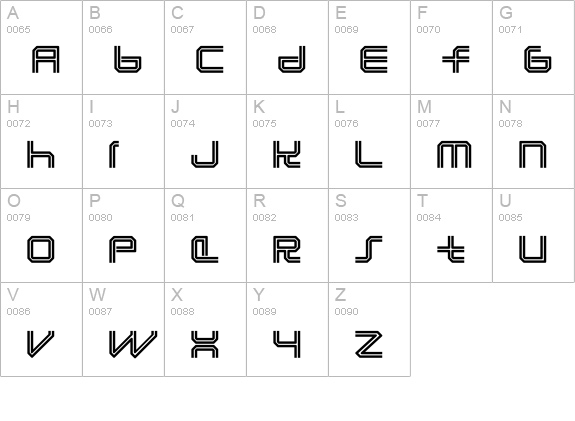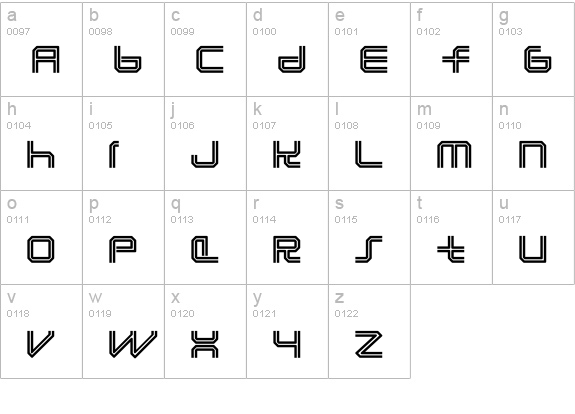
Lunasol font is a versatile and elegant typeface that exudes sophistication and modernity. With its clean lines and graceful curves, Lunasol is perfect for a wide range of design projects, from branding to editorial layouts. This font features a timeless appeal that will instantly elevate any design it is used in. What's even better is that Lunasol font is available for free download at FontsMarket.com. Whether you're a professional designer or a hobbyist looking to enhance your projects, Lunasol font is a must-have addition to your font library. Don't miss out on the opportunity to add this exquisite typeface to your creative arsenal today!